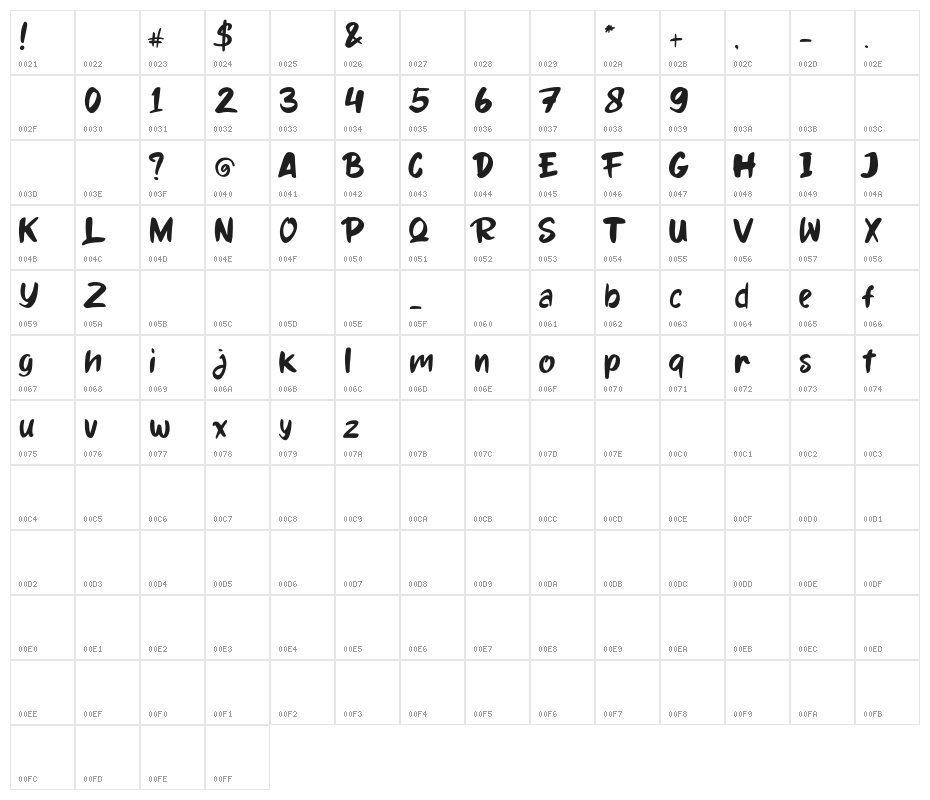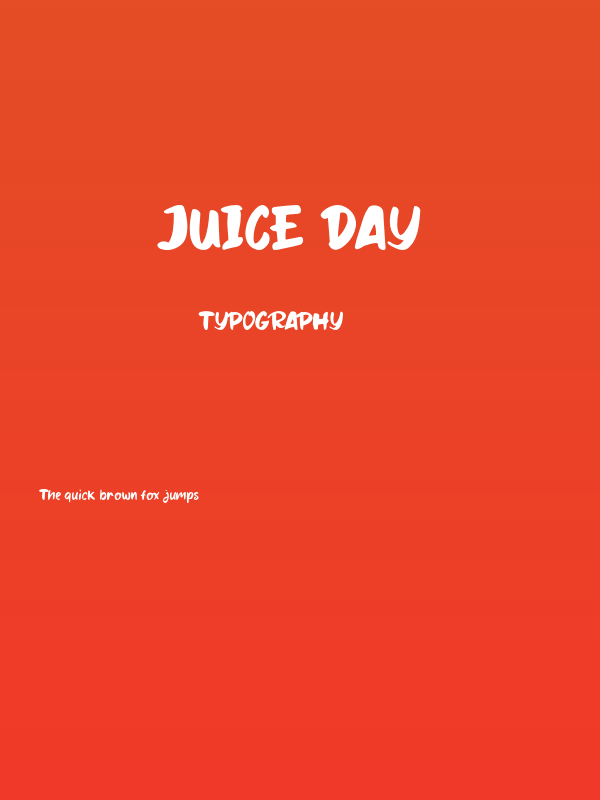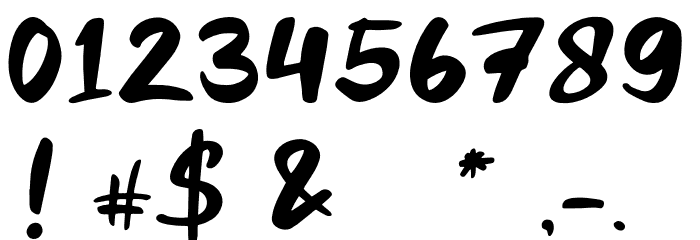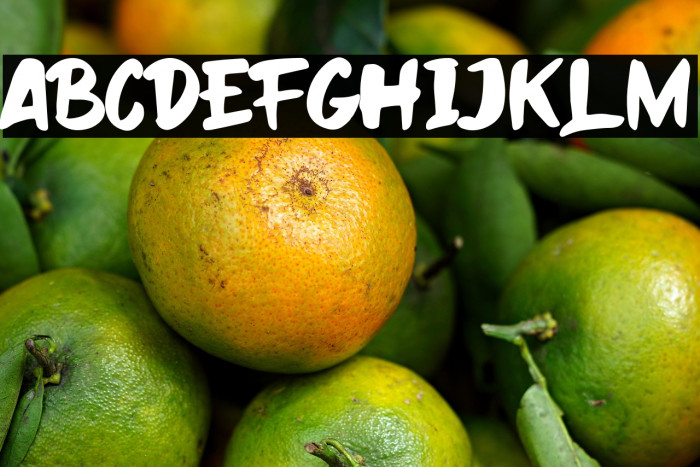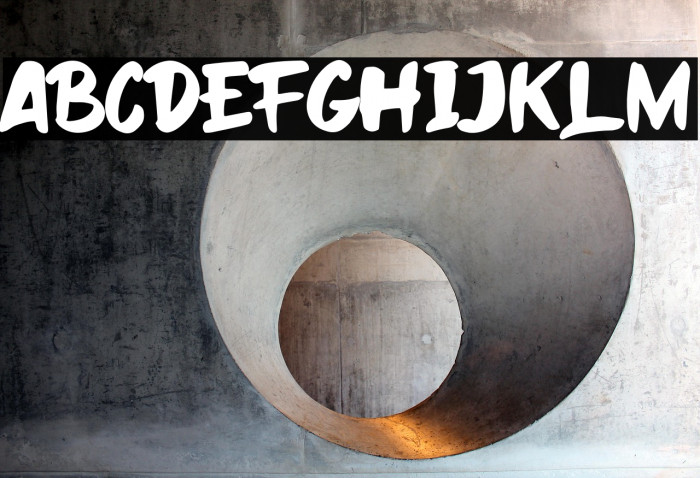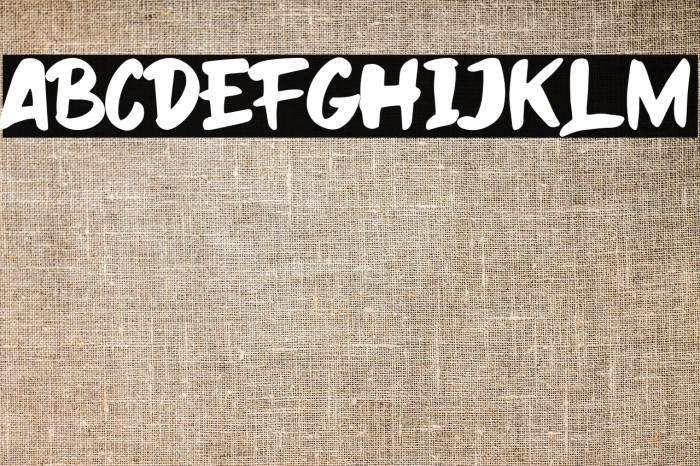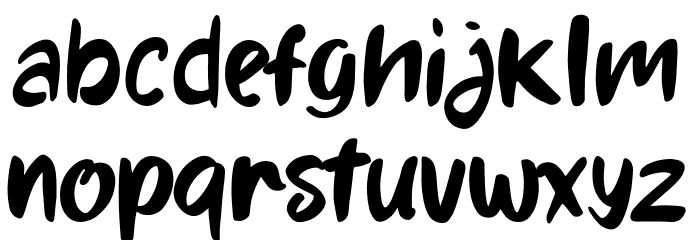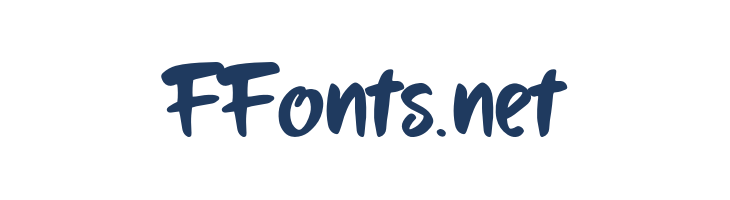
Juice Day Font
Juice Day Description
This font features a bold and playful handwritten style, characterized by its thick strokes and casual, flowing appearance. The letters have a lively and energetic feel, with slightly irregular shapes that add to its charm. The uppercase and lowercase letters maintain a consistent style, while the numerals and special characters complement the overall design. The font's informal and friendly nature makes it ideal for projects that require a personal touch or a sense of fun and creativity.
| Proposed Projects | Ideal for greeting cards, children's books, playful branding, and social media graphics. |